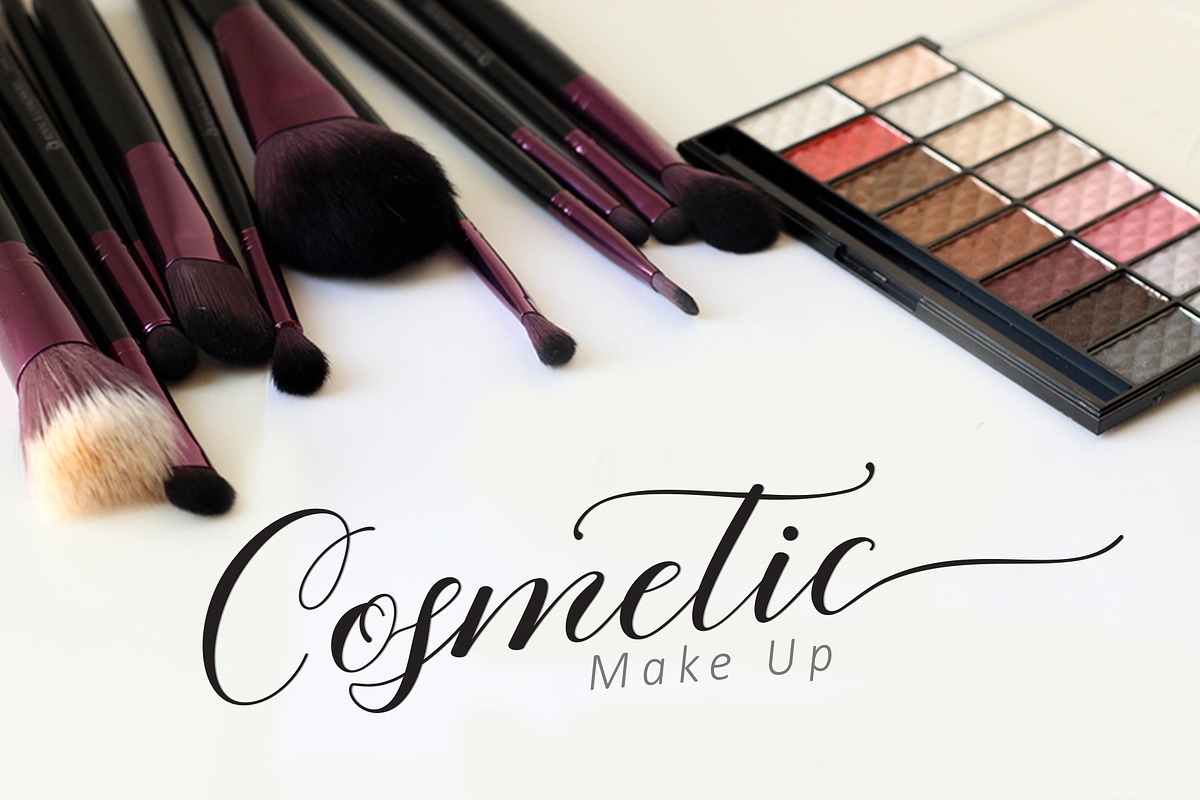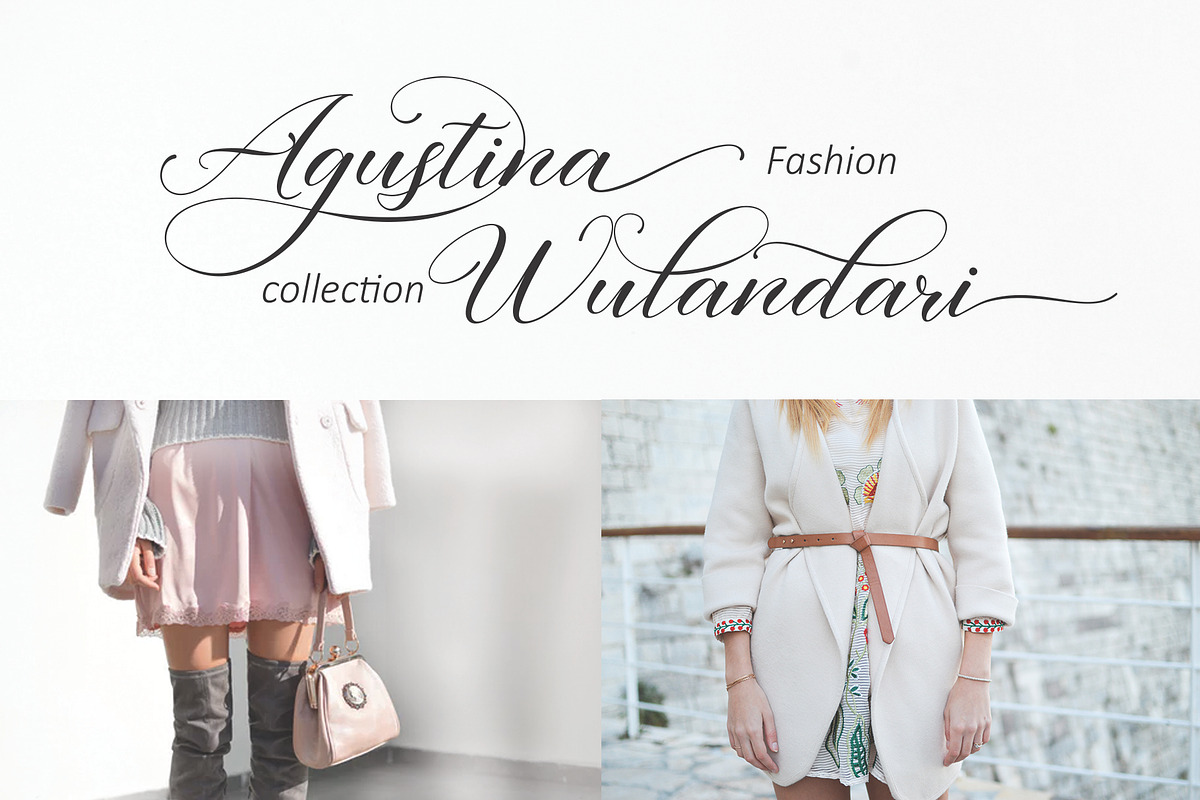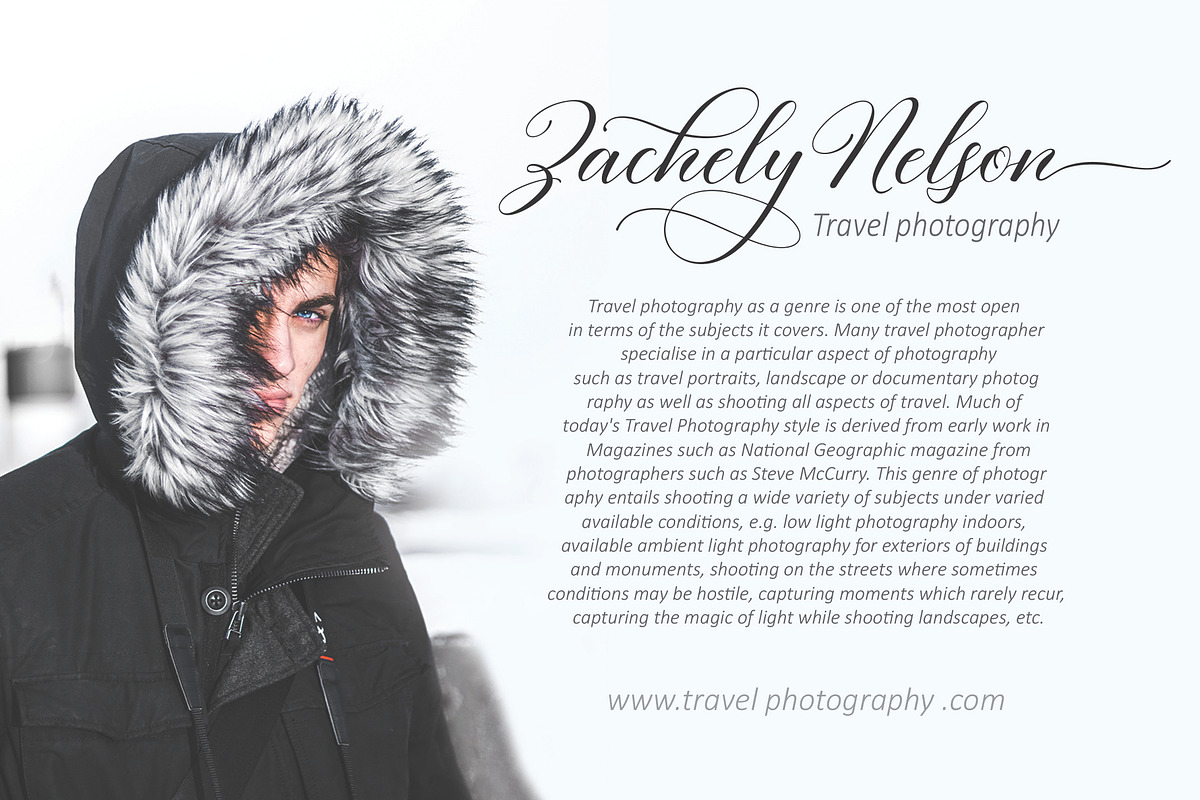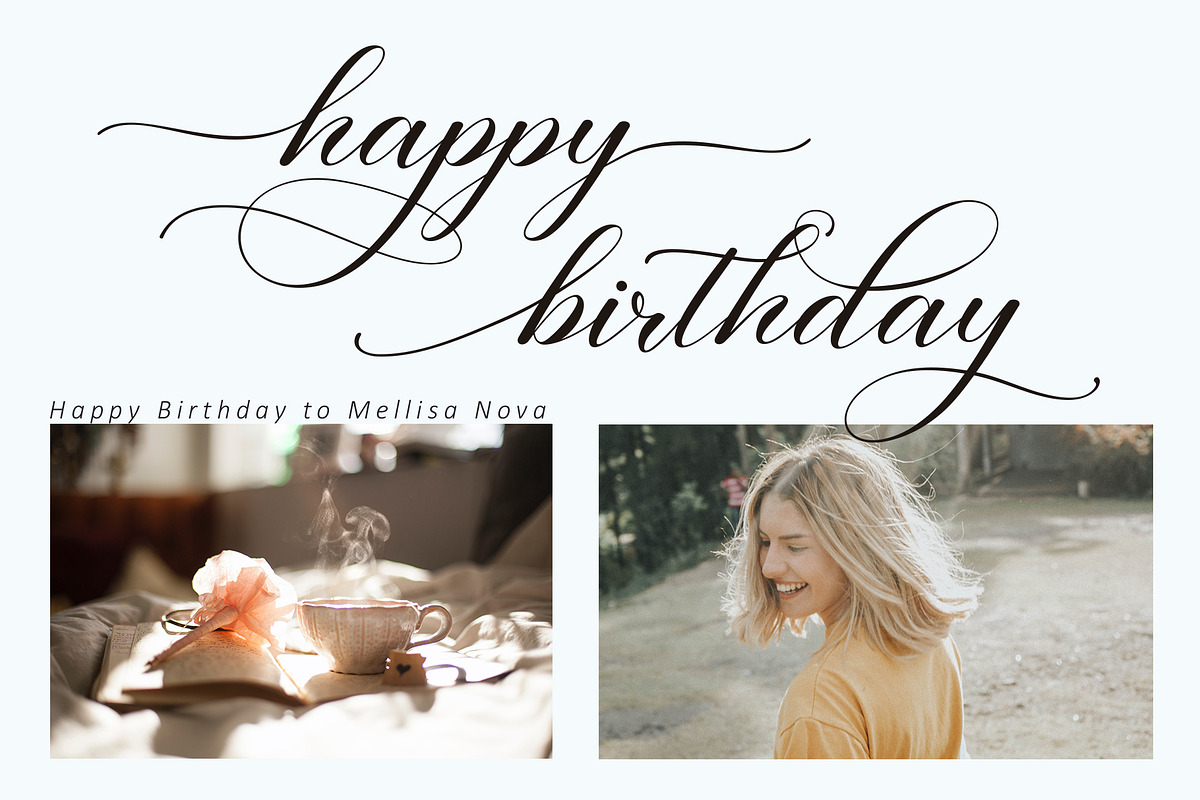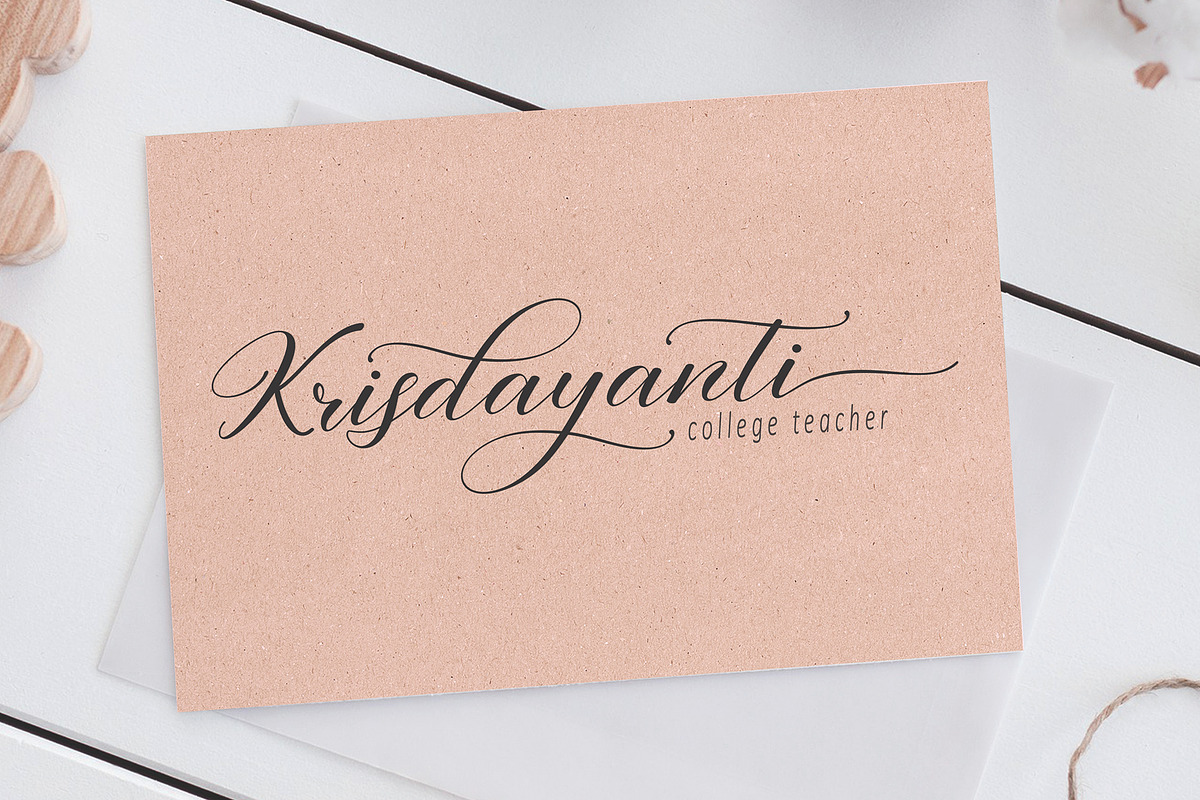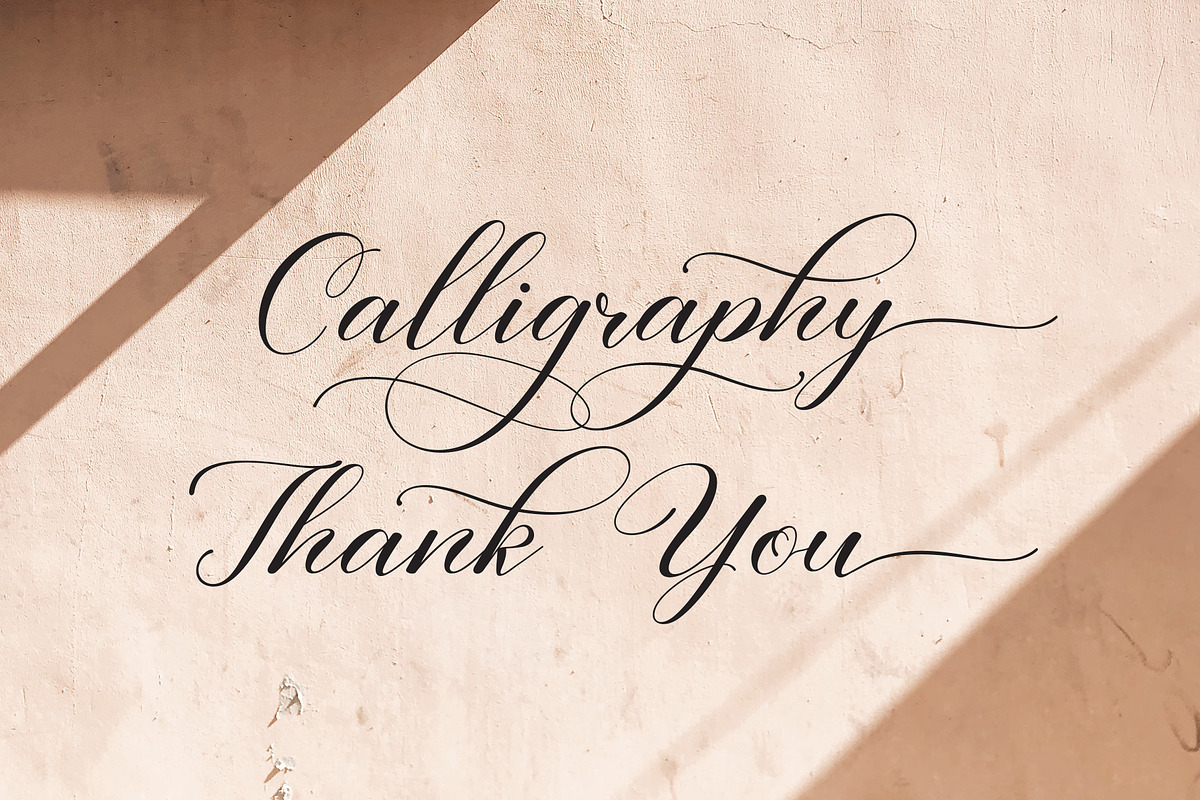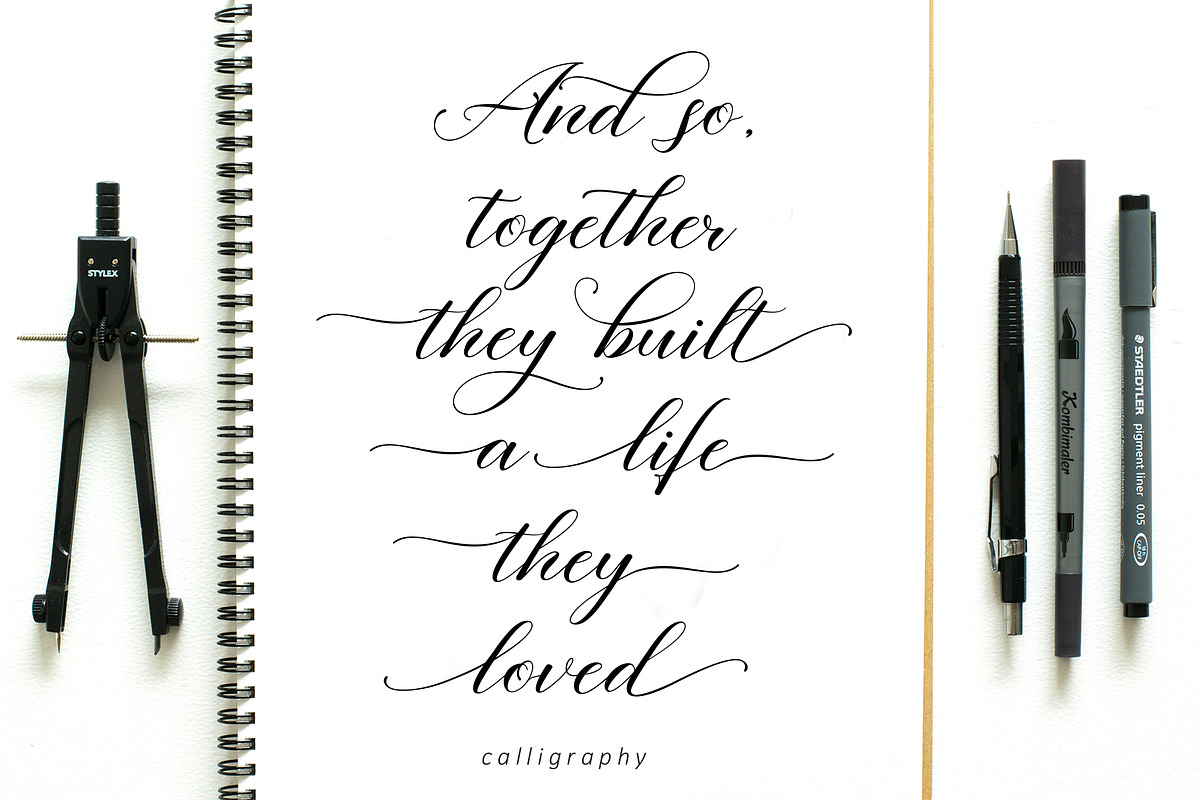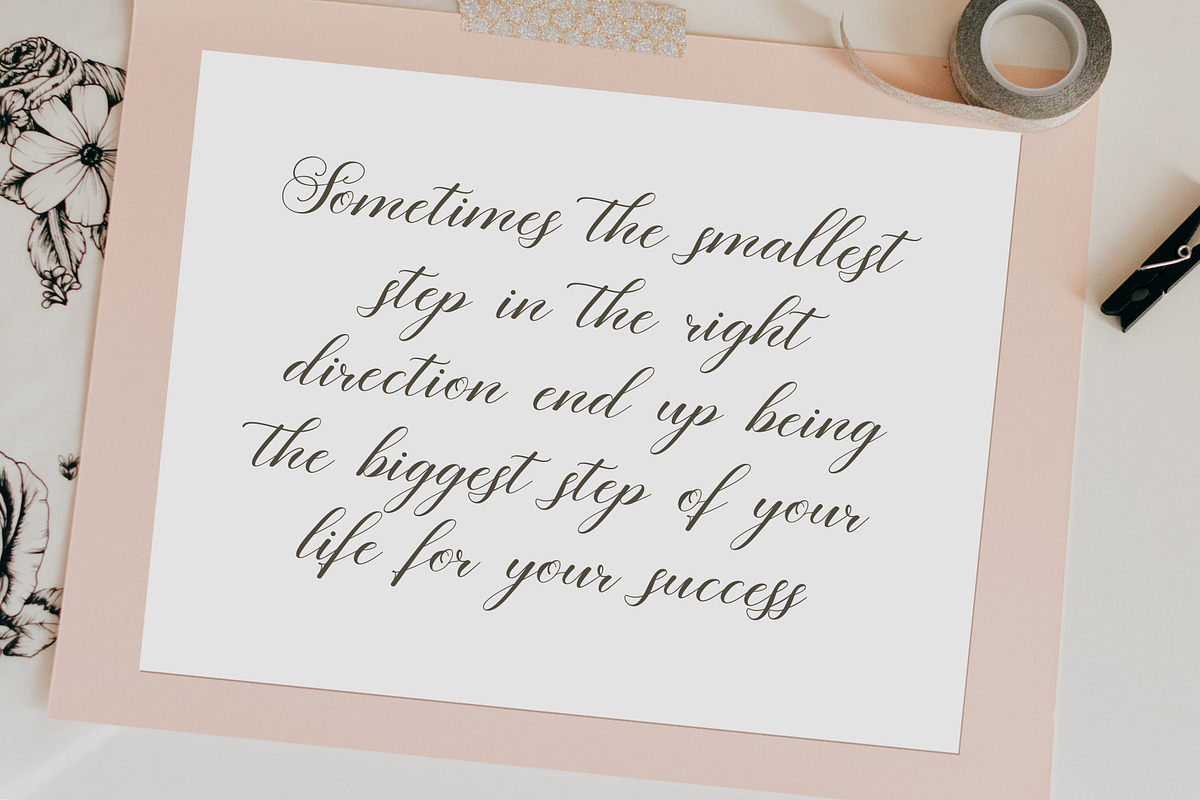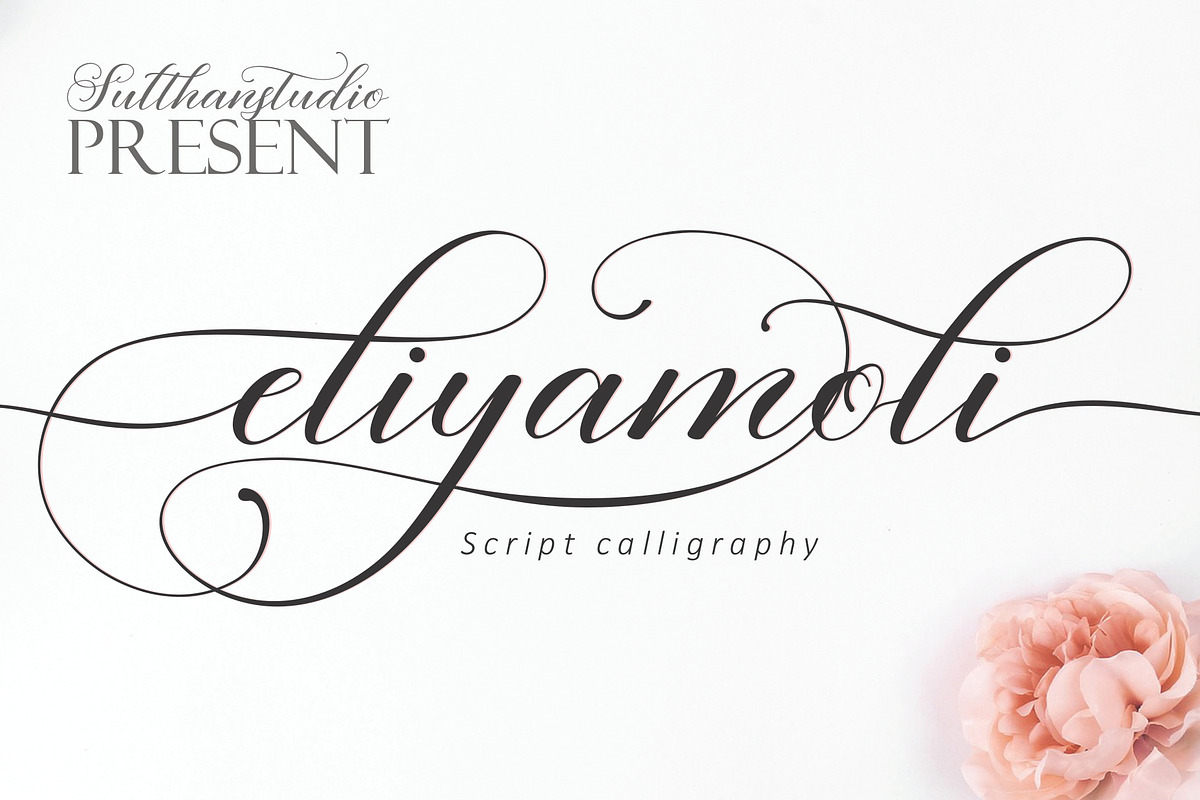
Eliyamoli script
Introducing Eliyamoli Script
Eliyamoli Scriptis modern script font, every single letters has been carefully crafted to make your text looks beautiful. With modern script style this font will perfect for many different project, example: invitations, greeting cards, posters, name card, quotes, blog header, branding, logo, fashion, apparel, letter, stationeryand more !
Eliyamoli Script. The alternative characters were divided into several Open Type features such as Swash, Stylistic Sets, Stylistic Alternates, Contextual Alternates. The Open Type features can be accessed by using Open Type savvy programs such as Adobe Illustrator, Adobe InDesign, Adobe Photoshop Corel Draw X version, And Microsoft Word. And this Font has given PUA unicode (specially coded fonts). so that all the alternate characters can easily be accessed in full by a craftsman or designer.